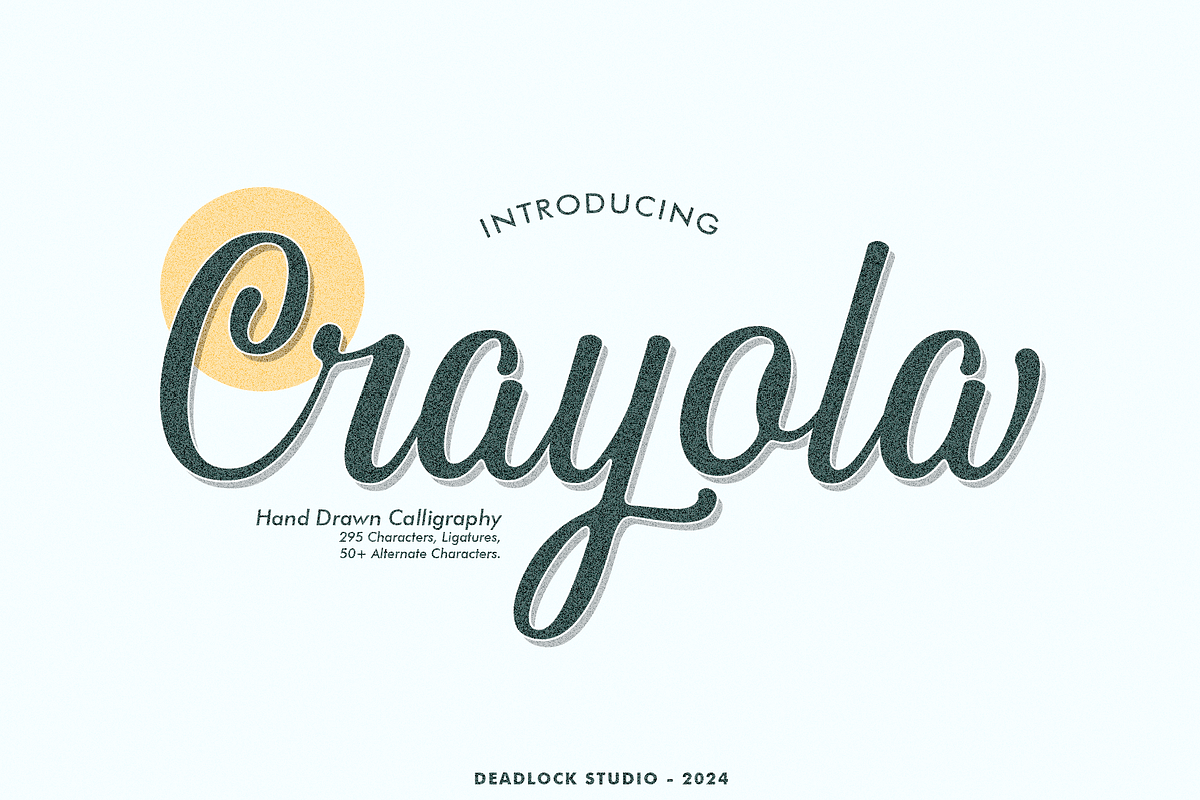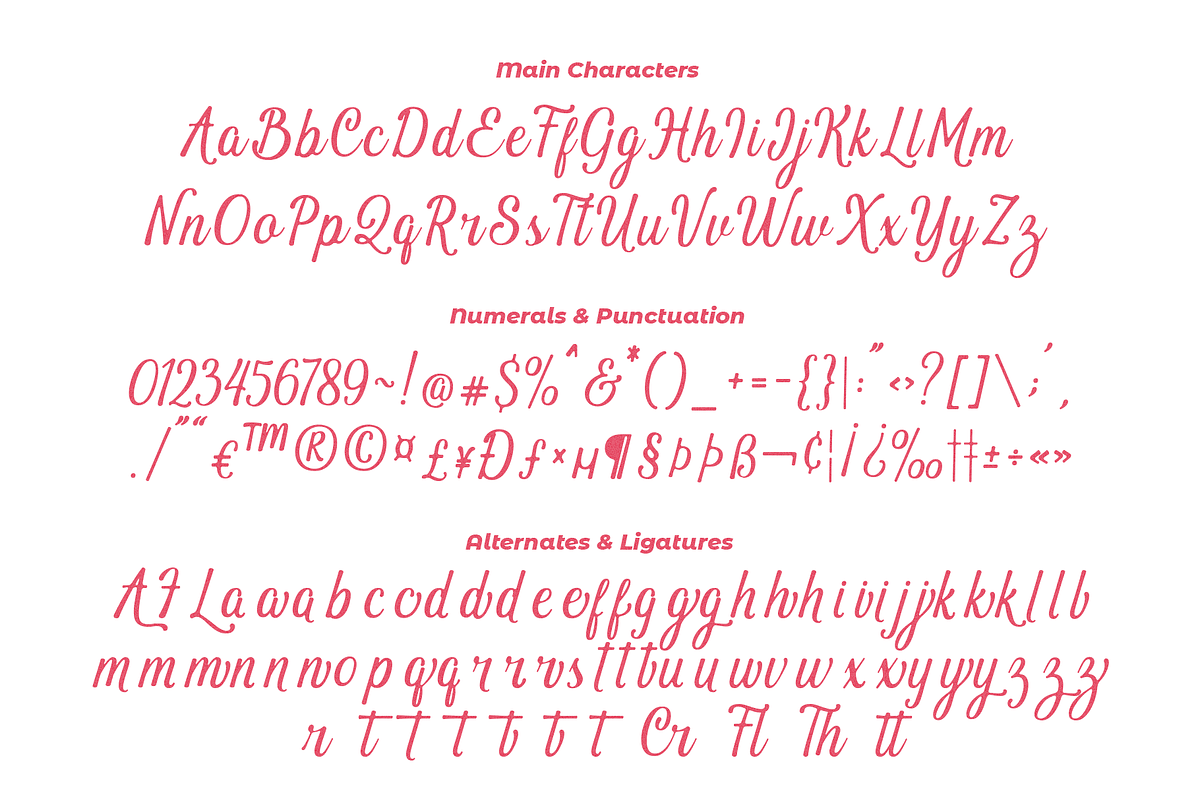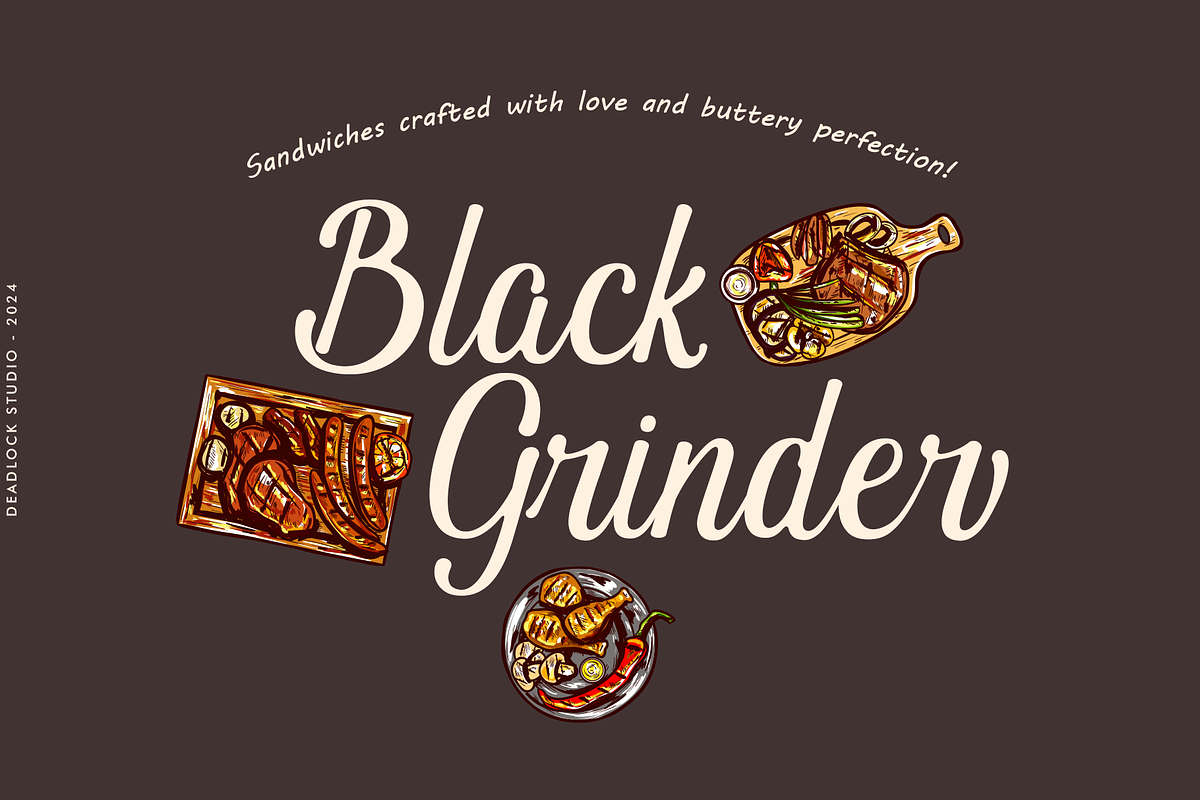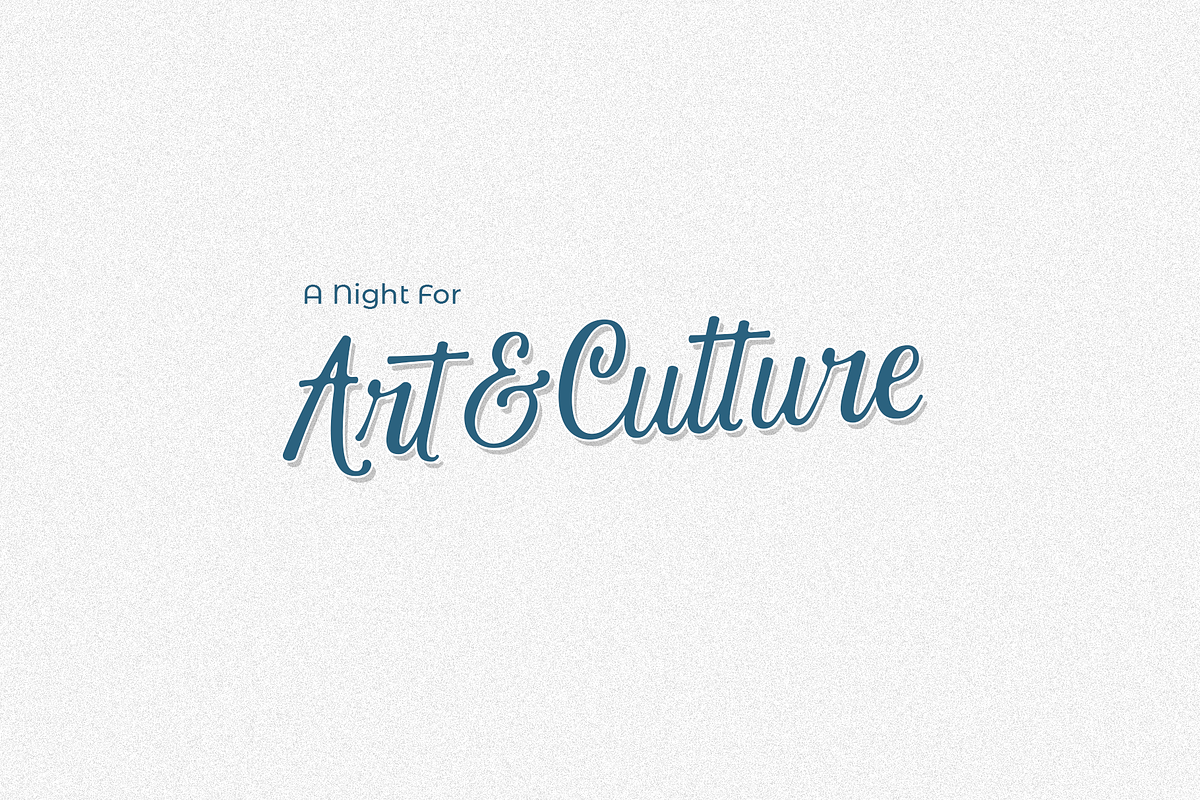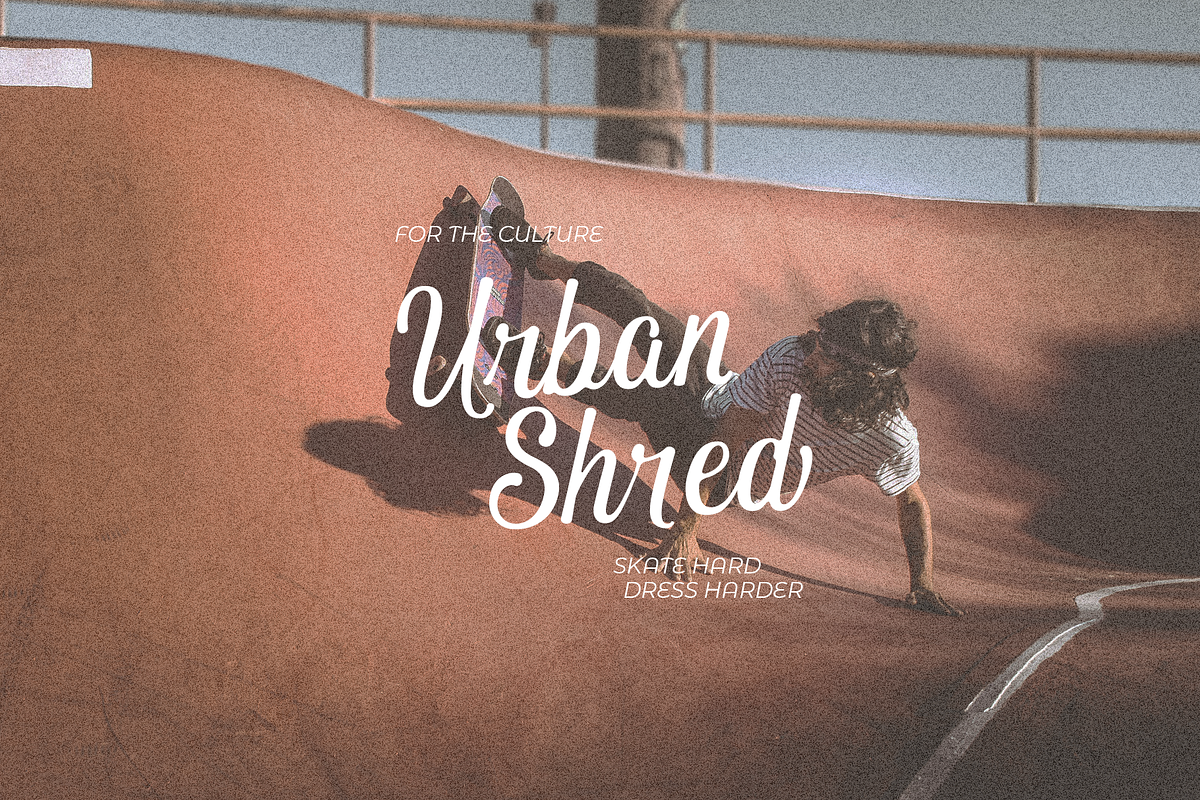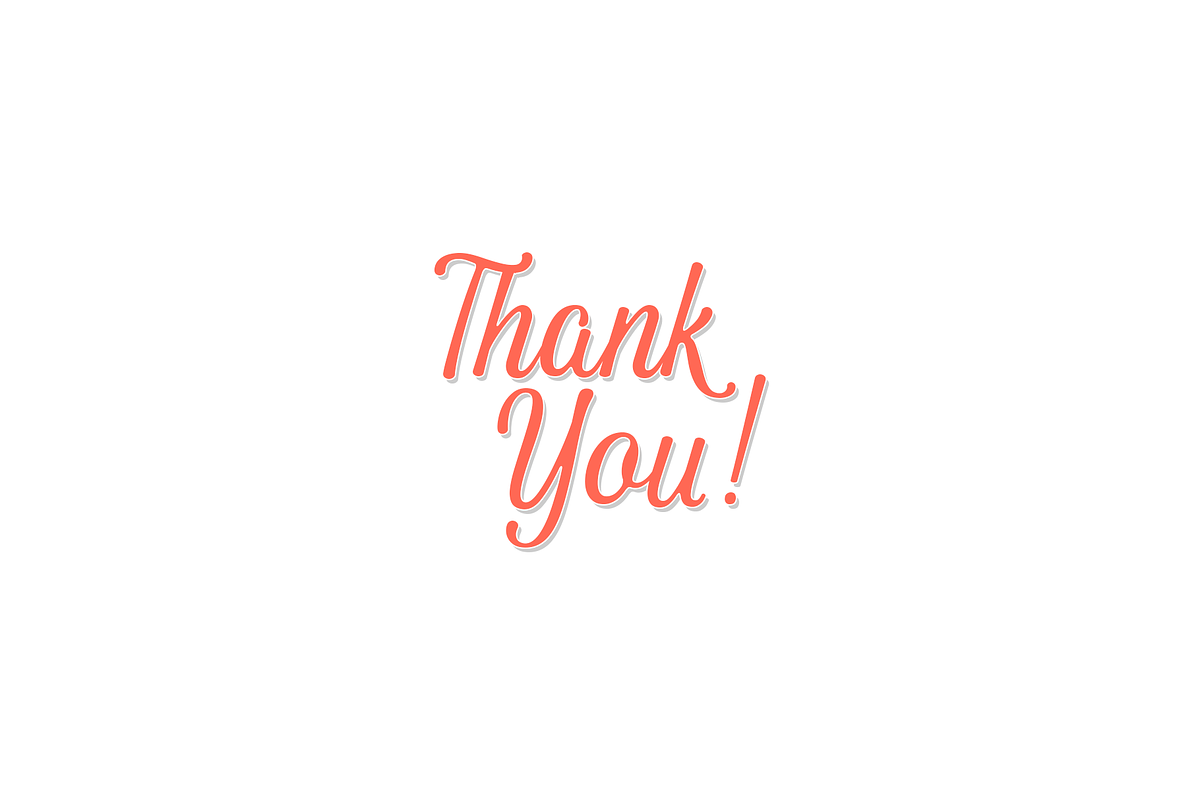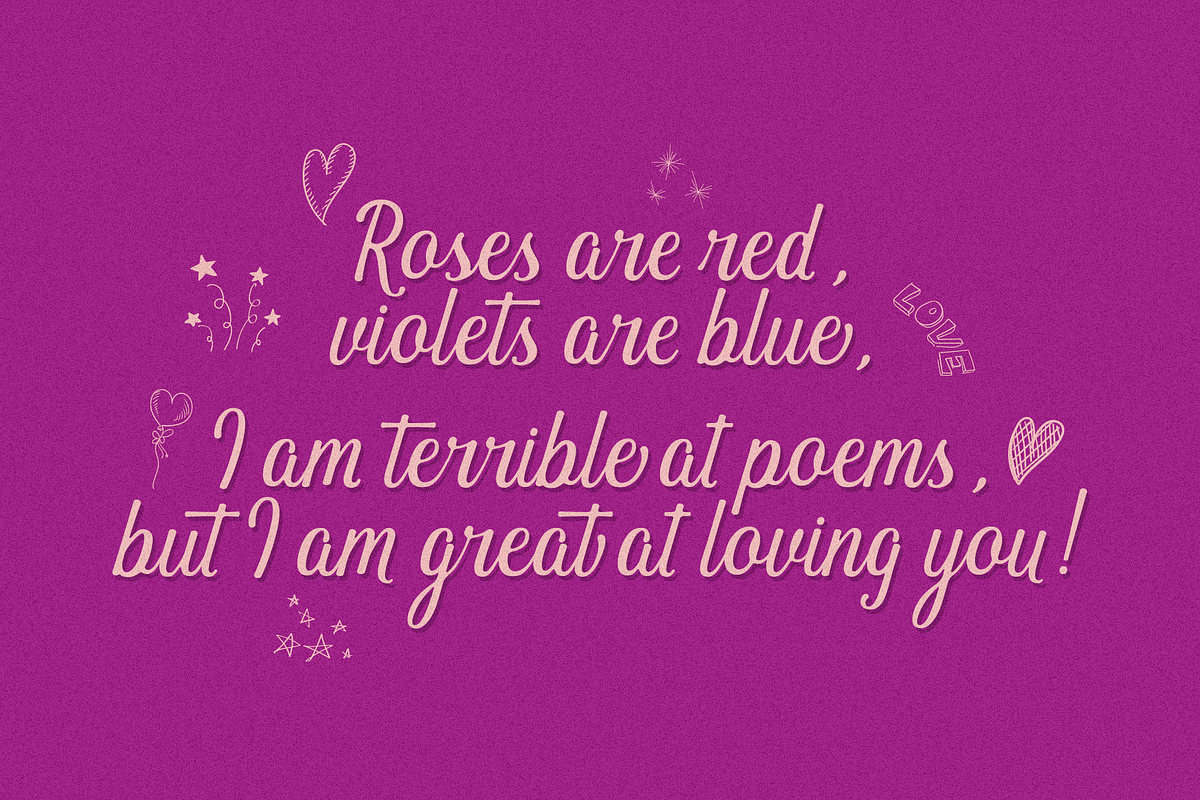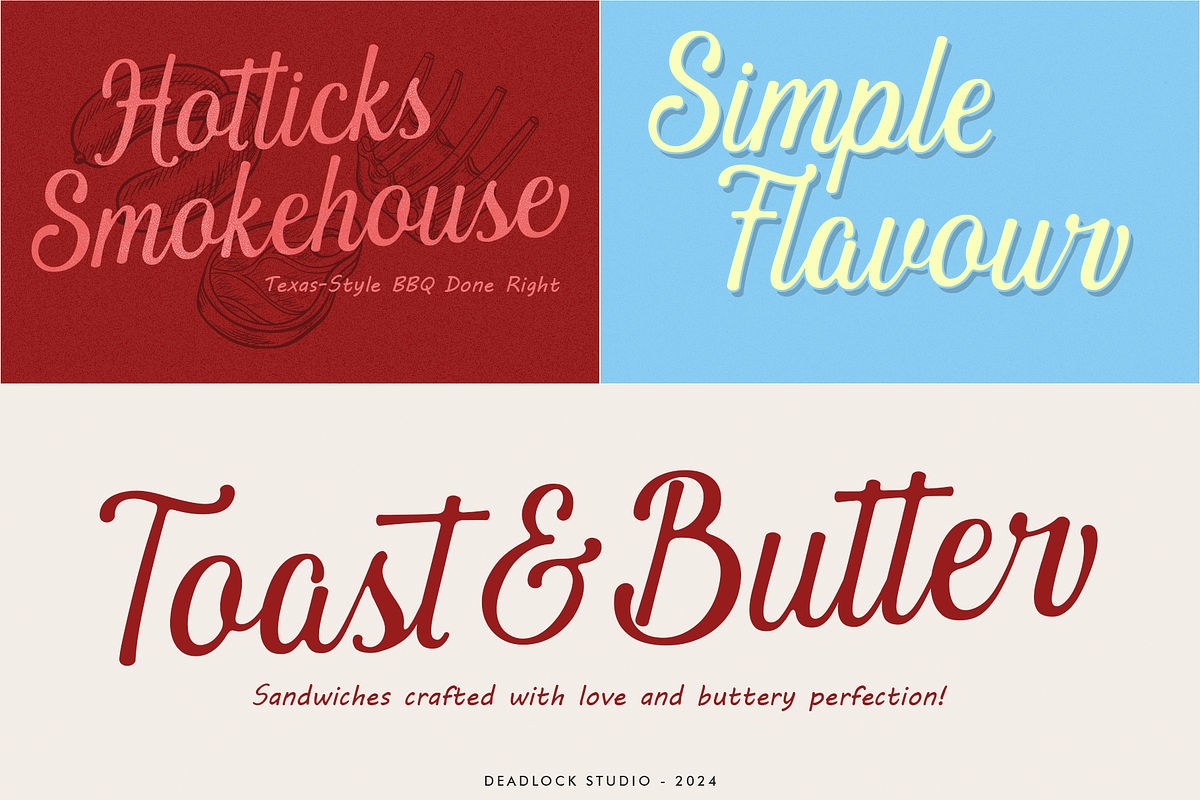
Crayola
Crayola is a modern calligraphy font featuring soft curves and lines that lend a delicate and realistic appearance to the characters.
With a total of 297 characters, Crayola is well-suited for various design projects, including invitation cards, product logos, food brands, and more.
Crayola comes equipped with Ligatures, Stylistic Set 01-09 and Stylistic Alternates, offering you the tools to achieve beautiful styles and enhance your own creative expressions.